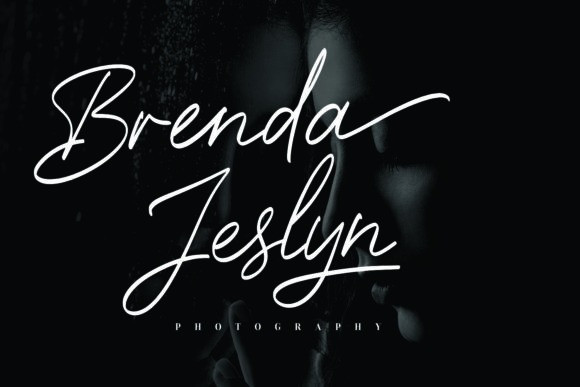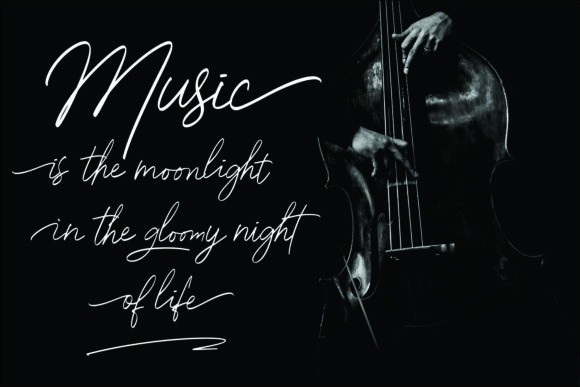
Lovesick Sunday Calligraphy Font
Lovesick Sunday is a delicate and elegant handwritten font. This font is ideal for personal and romantic designs, such as wedding invitations, thank you cards or letters.